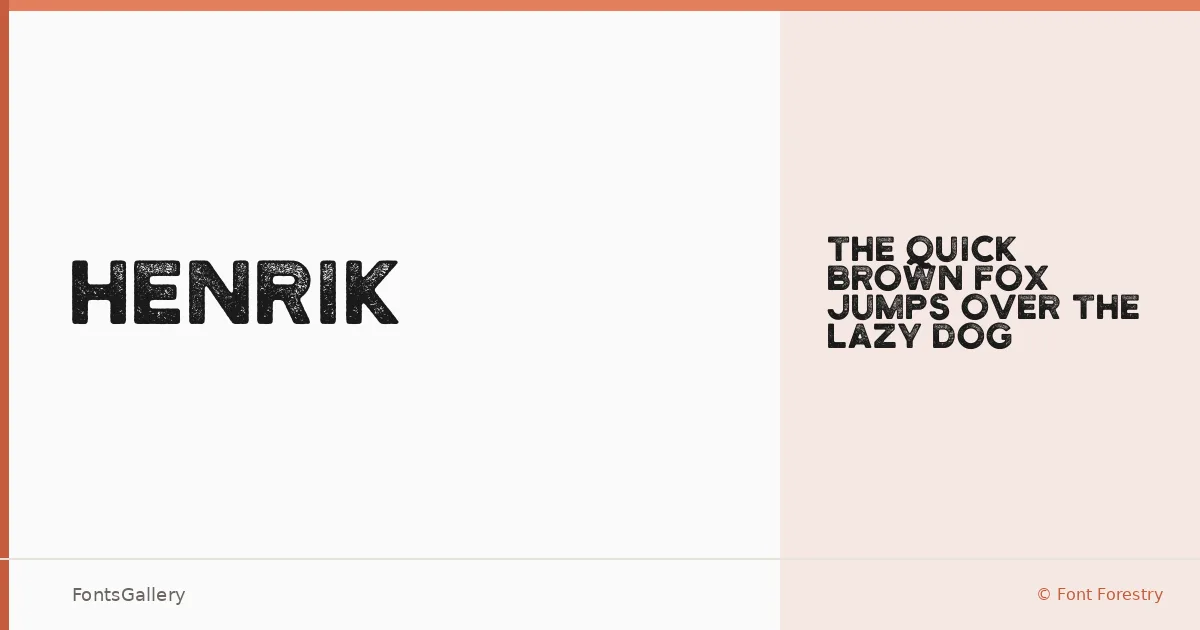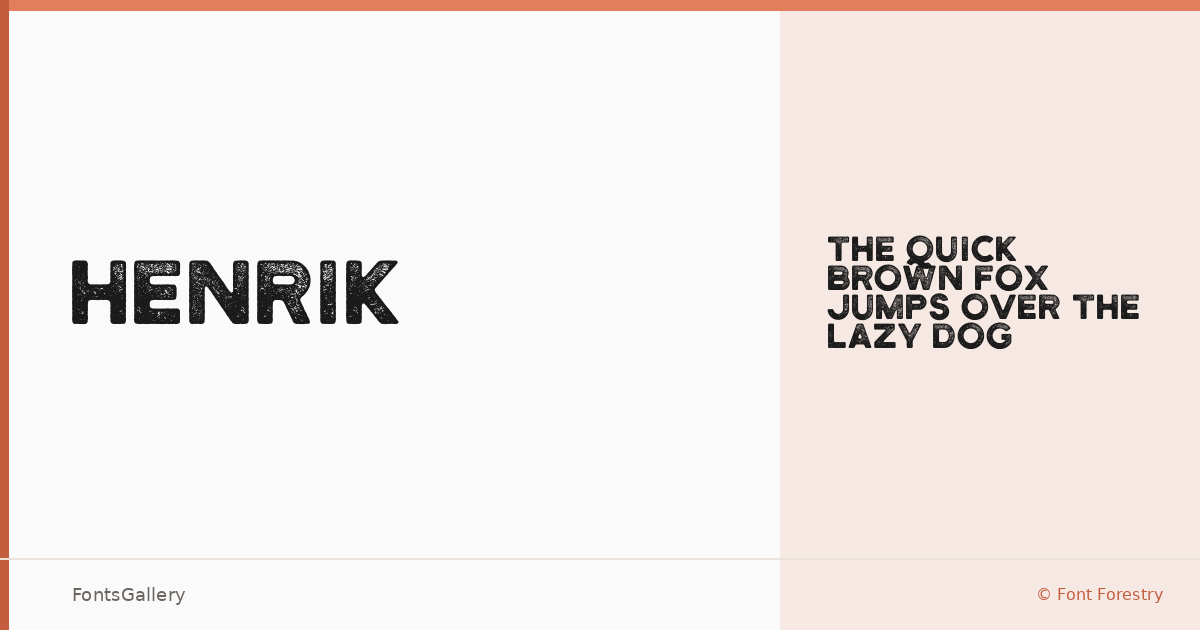
About Henrik Font
There is a tension in this display face that feels deliberate — something between weathered authenticity and sharp modern edge. Released by Font Forestry, Henrik comes as a single Regular weight in OTF format, and that one cut carries a grunge-inflected character with enough structural confidence to hold its own at large sizes.
The mood sits at the intersection of vintage grit and modern boldness — the kind of letterforms that suggest worn printing, ink pressure, and a certain blunt authority. It reads as a display face through and through: not built for running text, but designed to command attention in a headline or lock-up. The rough edges feel intentional rather than accidental, giving it a raw, hand-touched quality that still reads clearly at scale.
It earns its place in branding projects, poster work, logo treatments, and T-shirt design — anywhere a headline needs personality and a slightly rough handshake. For pairing, the clean geometry of Helvetica or Josefin Sans provides strong contrast against its textured character, while Canela, Asap, or ABC Arizona offer softer editorial counterpoints depending on the register you're working in.